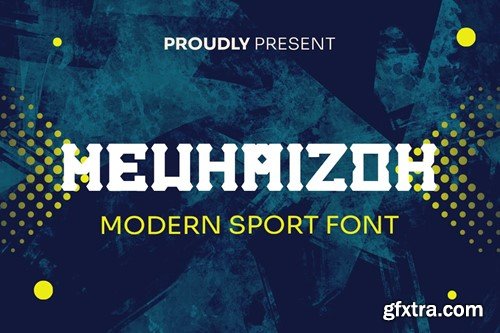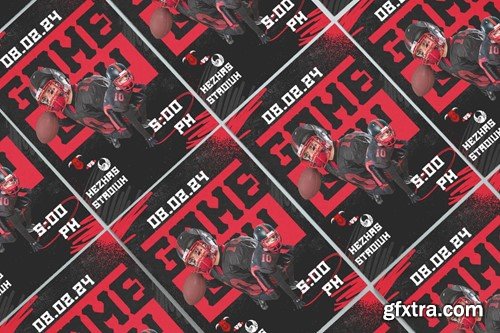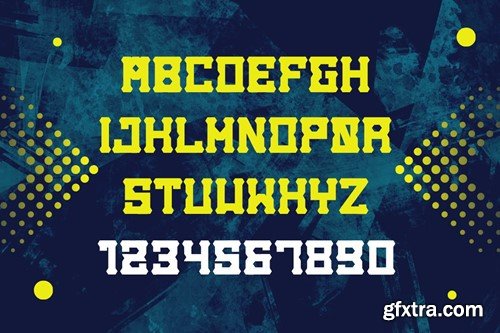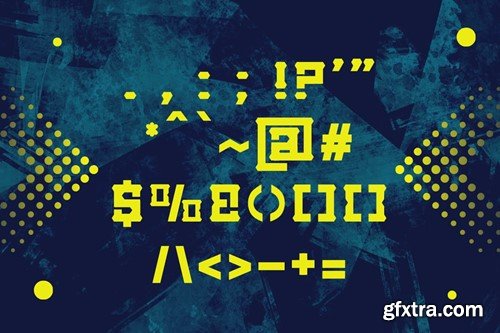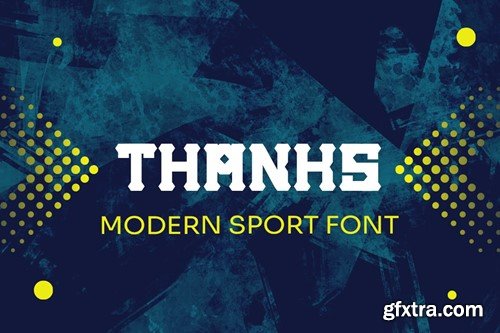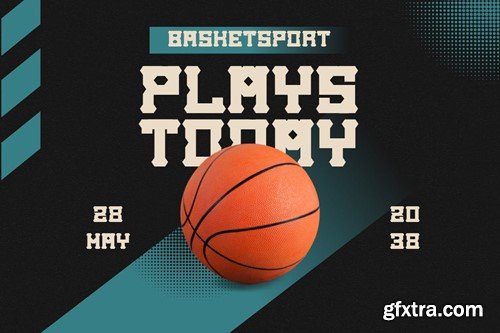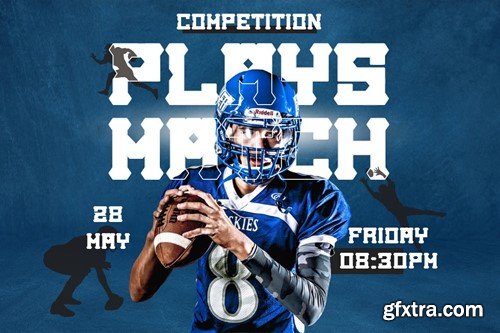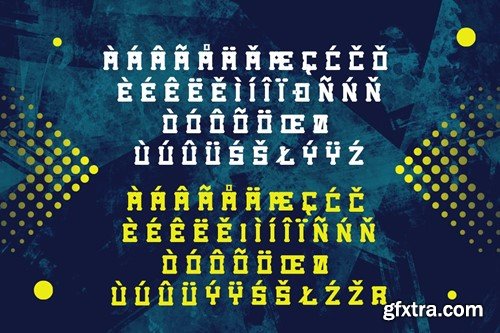
Mevhaizok - Modern Sports Font BAYRKCR
Mevhaizok - Modern Sports Font
Introducing Mevhaizok - Modern Sports Font
This Font is a delicate, elegant and flowing handwritten font. It has beautiful and well as a unique blend of ligatures a letter, so that the authors compose it with a and little swirly embedding, so that a modern font is formed and ready to make a statement by adding elegant and unique flair to your next design project. Add it to your most creative ideas and notice how it makes them come alive!
• Numbering & Punctuation
• Multilingual Supports